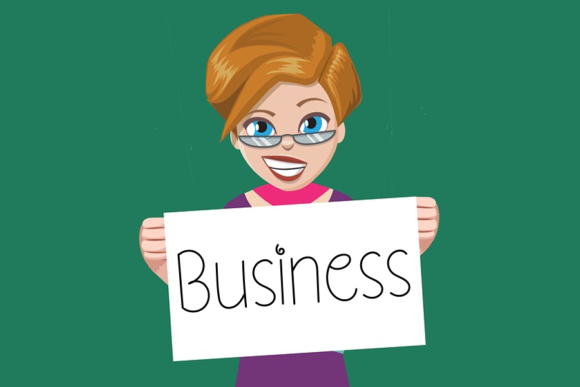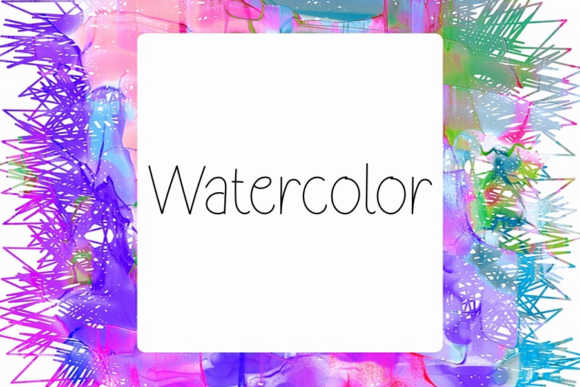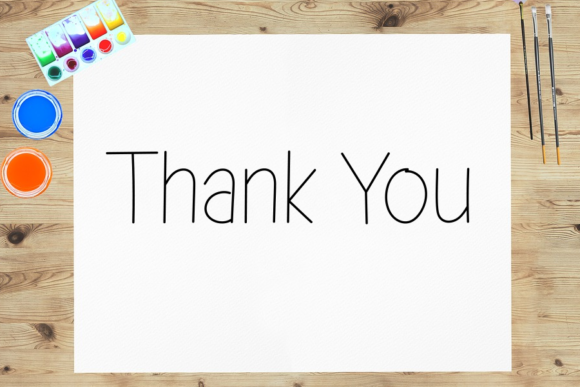
Sunrise Font
About Sunrise Font
Sunrise is a cute and simple lettered handwritten font that can be used for all chalkboard quotes or teaching material! Its authentic look will add a personal and realistic feel to your designs.